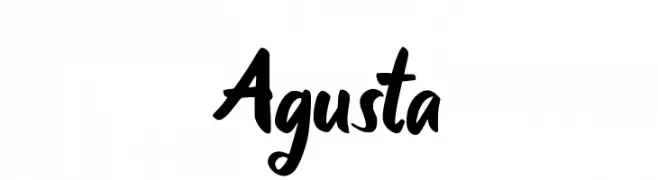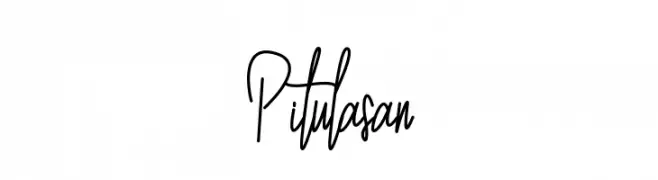
A playful, heart-themed decorative font with bold, rounded characters.
An elegant script font with flowing curves and bold uppercase letters.
A playful and elegant script font with flowing, cursive letterforms.
A bold, expressive script font with a dynamic, hand-painted style.
A fluid and elegant handwritten font with thin, consistent strokes.
A flowing, elegant cursive font with seamless character connections.
A bold, italicized font with a modern and sleek design.
A bold, modern sans-serif font with clean lines and strong presence.
A modern, geometric sans-serif font with clean lines and balanced proportions.
A modern, italic sans-serif font with a clean and dynamic appearance.